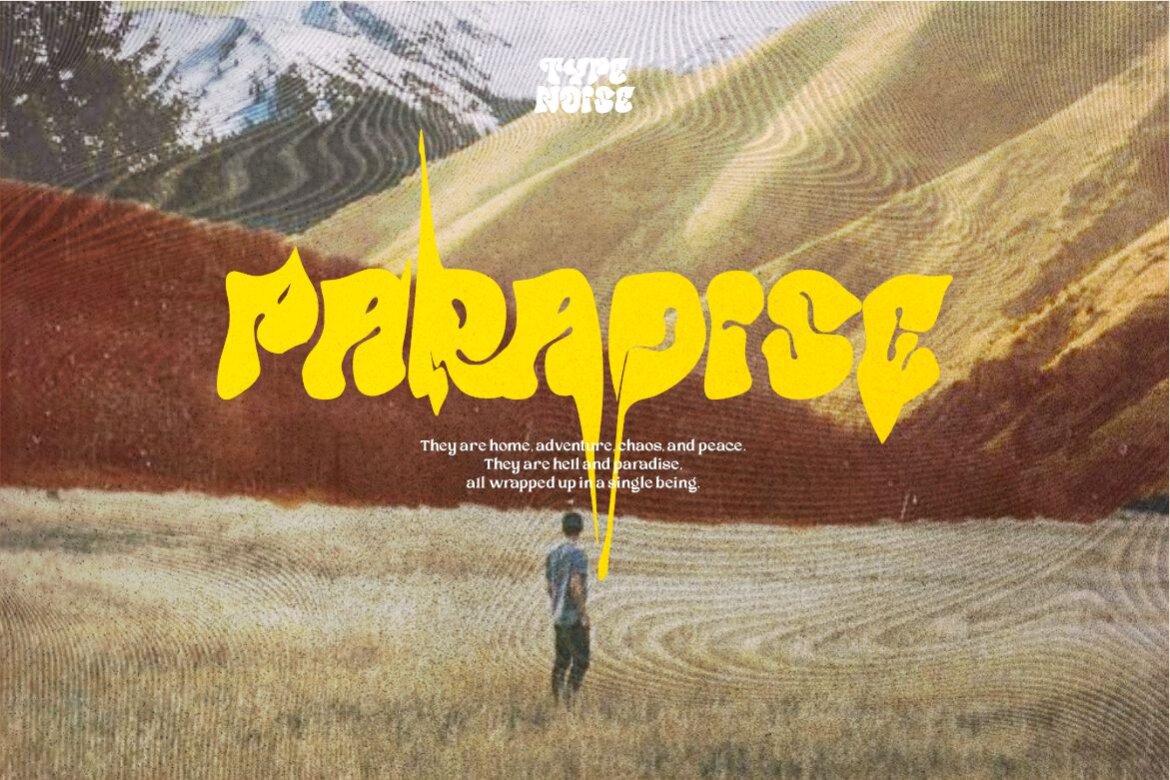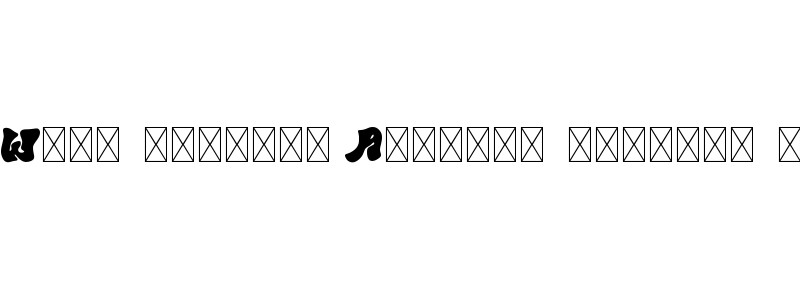
Despair FREE Font
Despair
Get transported to the golden era of design with our Despair Retro, a vintage-inspired typeface that flawlessly marries nostalgia with modern design sensibilities. This groovy retro display font has been thoughtfully crafted to evoke a sense of the past while still resonating with contemporary aesthetics. Retro yet inherently hip, Despair Retro is a visual treat, the ideal solution to seamlessly infuse your projects with a mid-century charm. This aesthetically appealing typeface is perfect for designers looking to add a touch of timeless vintage allure to their design arsenal. A true testament to the vivacious spirit of the retro era, Despair Retro is not just a font, it’s a homage to a bygone era of daring design and unfiltered creativity.